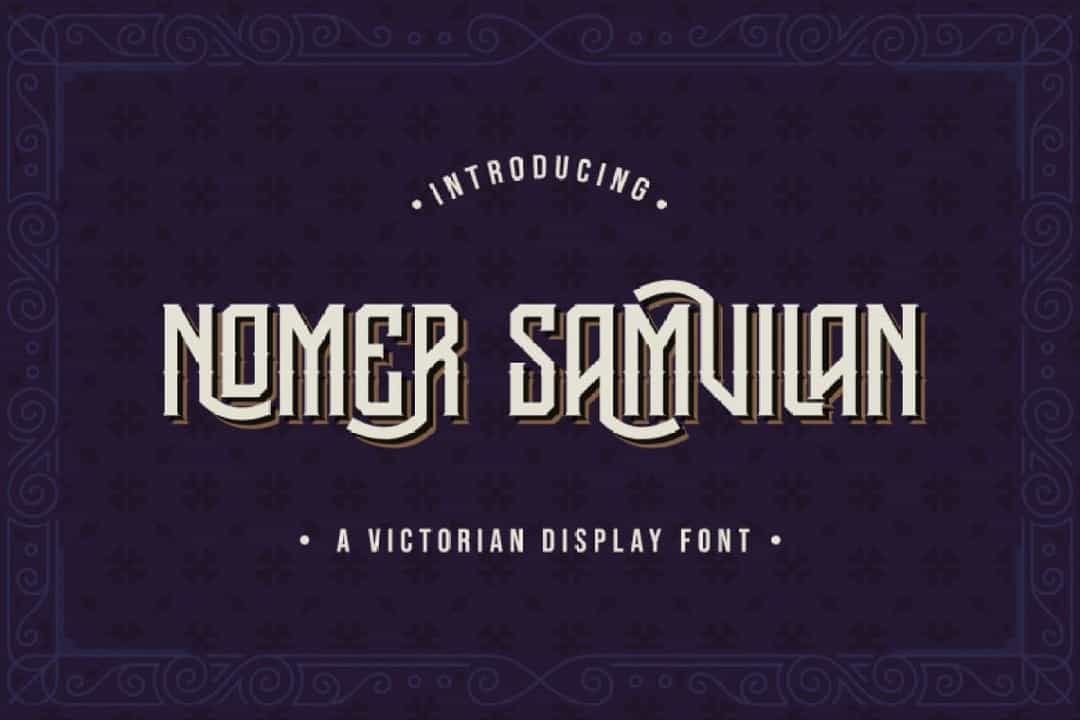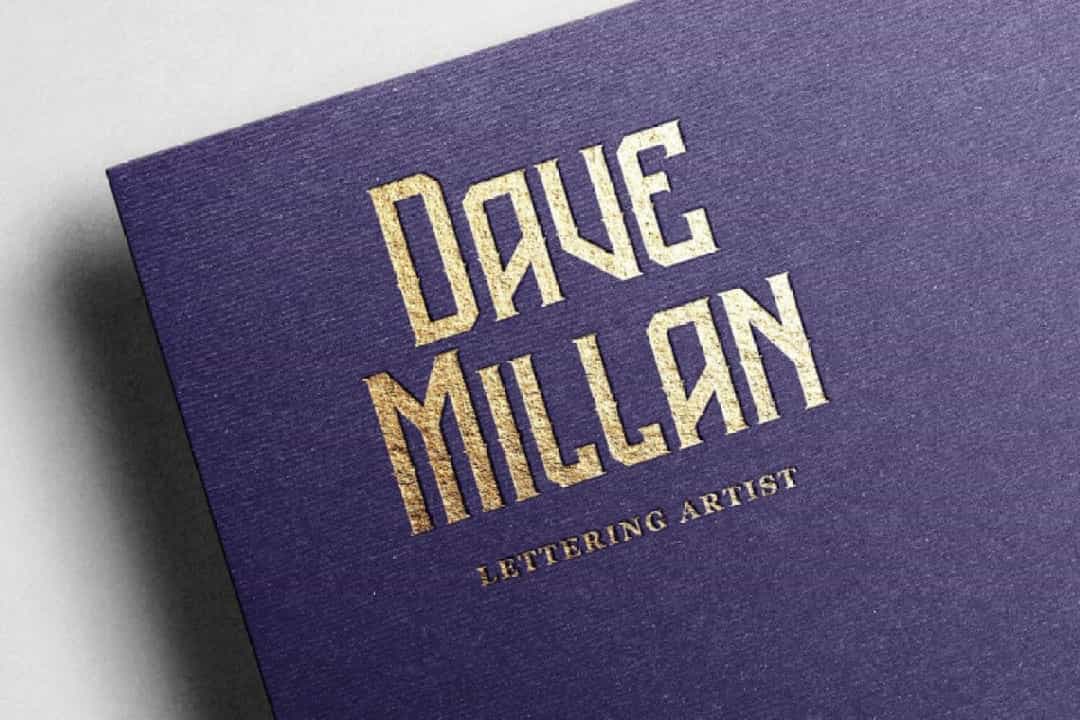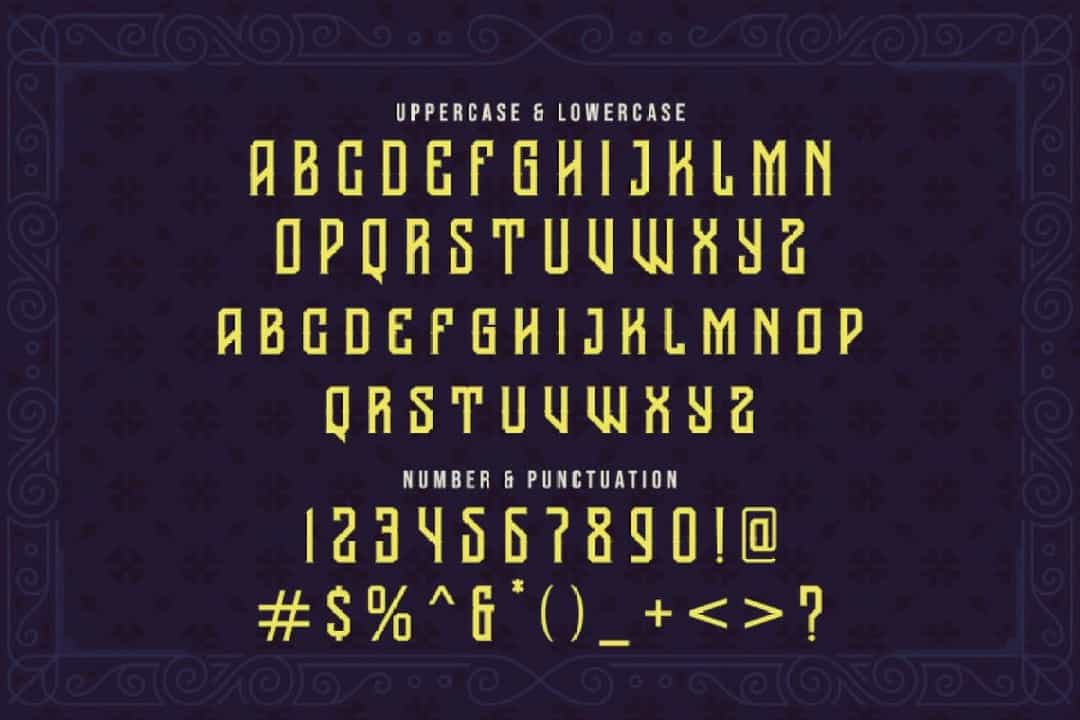
Nomer Samvilan is an elegant and vintage decorative display font with Victorian influences that offers a nostalgic vibe and distinctive vintage aesthetic. Drawing inspiration from vintage tattoo designs, Nomer Samvilan stands out as an impressive typeface.